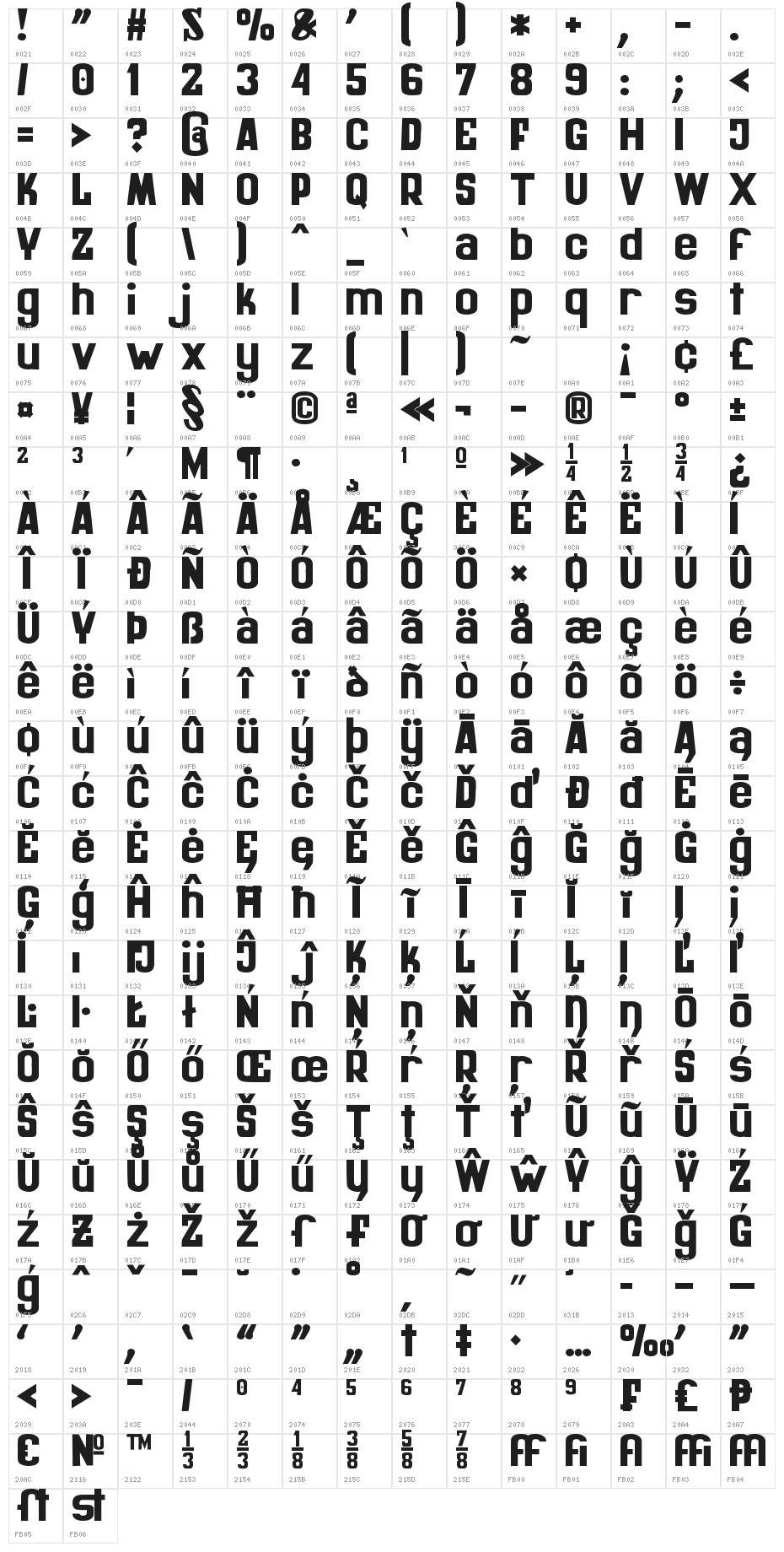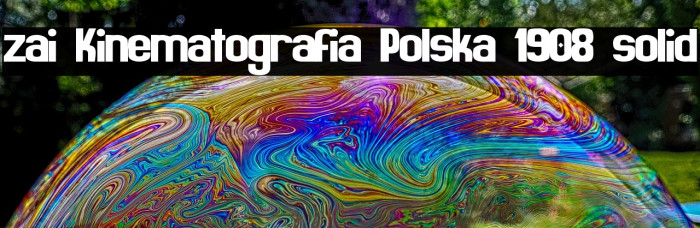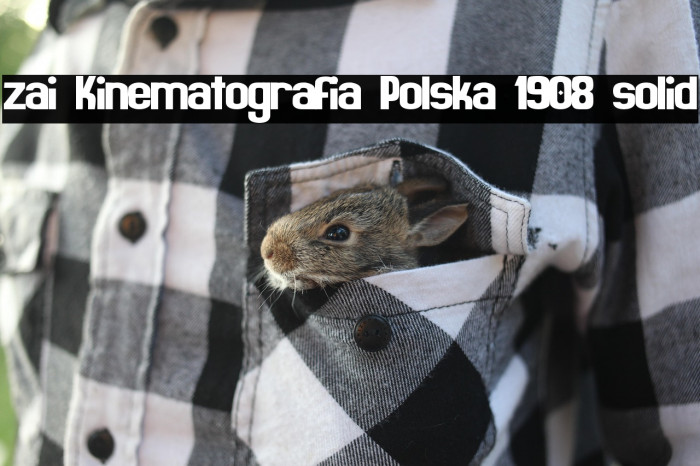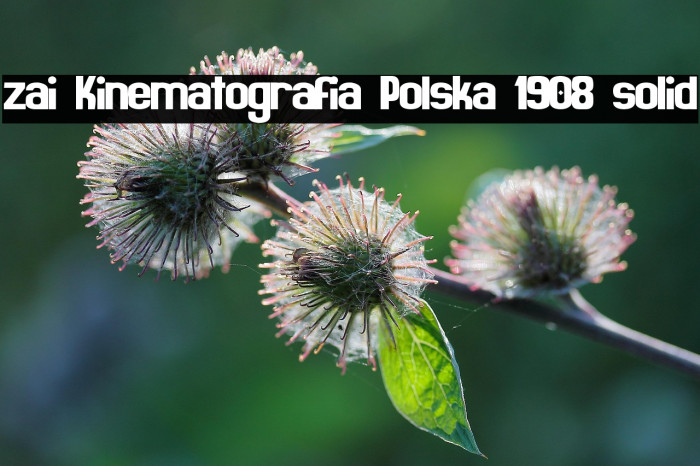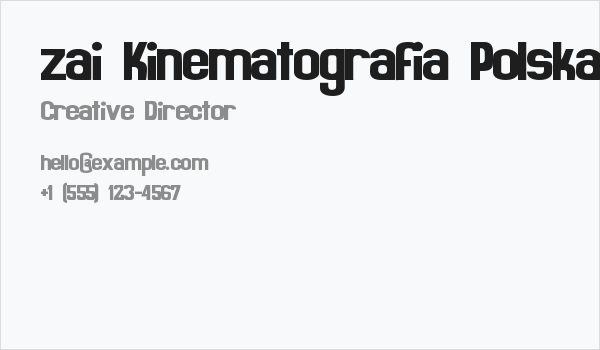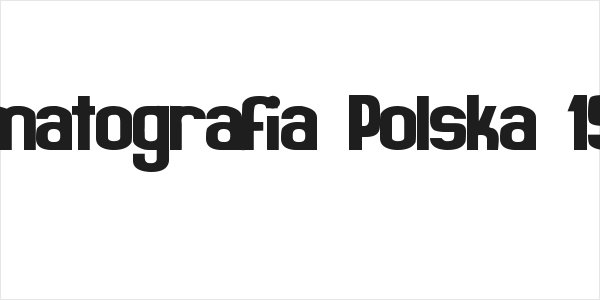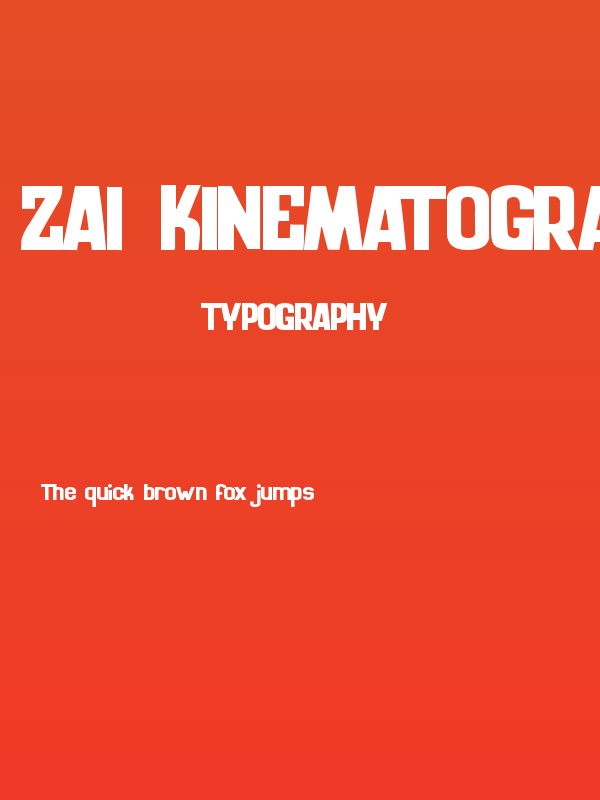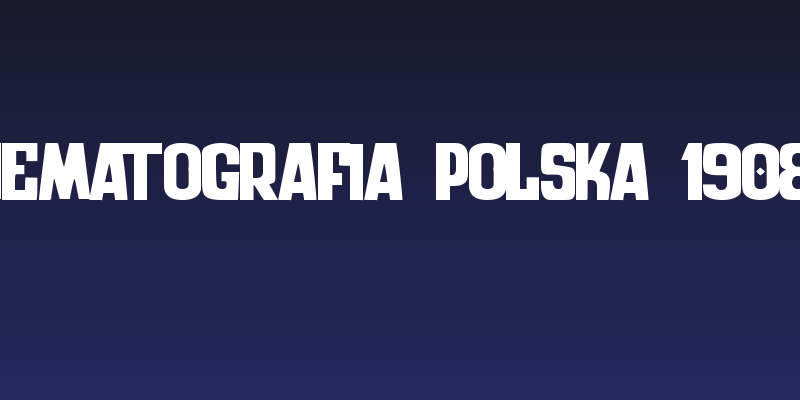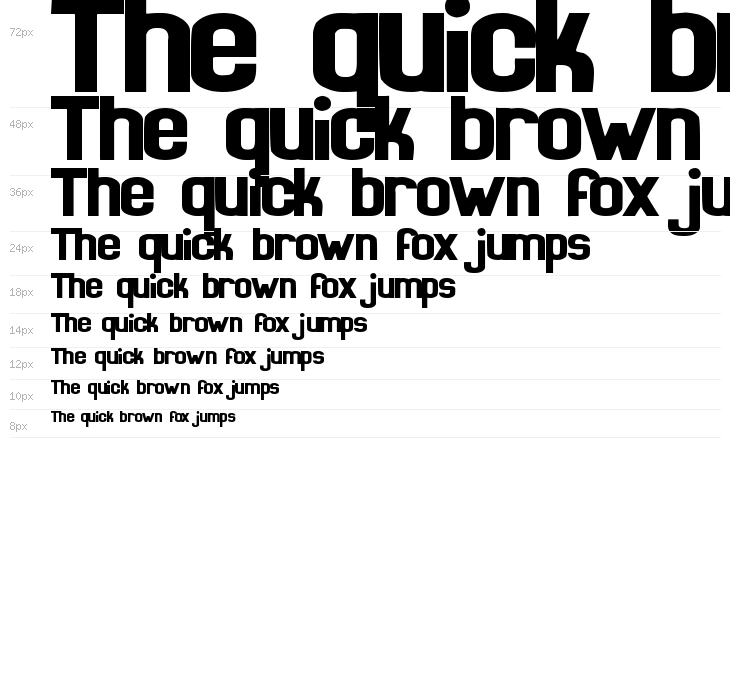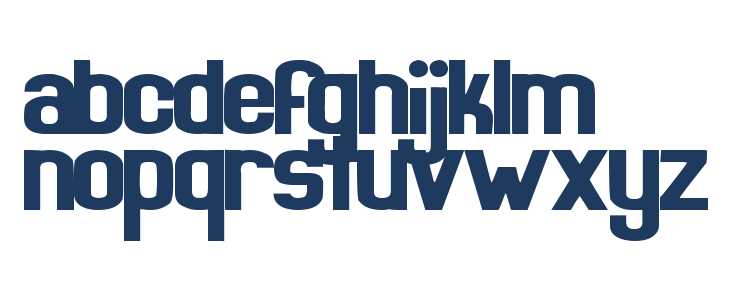
zai Kinematografia Polska 1908 solid Font
zai Kinematografia Polska 1908 solid Description
This font features bold, geometric letterforms with a strong presence, characterized by its solid and blocky appearance. The uppercase letters are particularly striking, with uniform stroke widths that create a cohesive and impactful look. The lowercase letters maintain the boldness, offering a consistent visual weight throughout. The numerals and special characters are equally robust, ensuring readability and emphasis. This font's design is reminiscent of early 20th-century styles, with a modern twist that makes it suitable for contemporary applications.